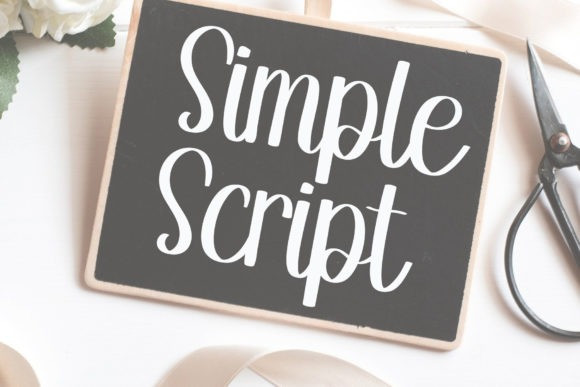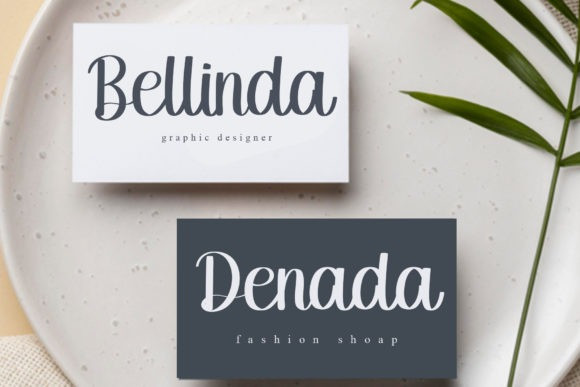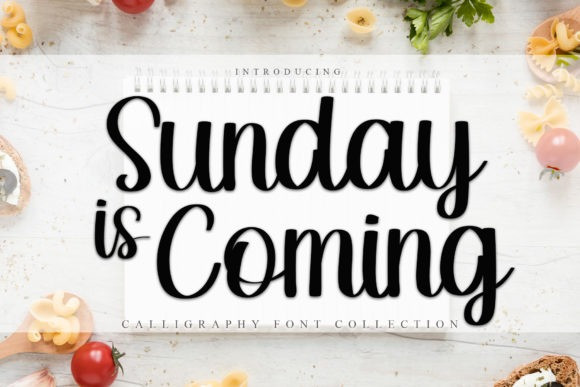
Sunday Is Coming Font
Sunday Is Coming Script Font is a sweet and cursive handwritten font. This gentle font will look gorgeous on a variety of design ideas. It will add a joyful and romantic touch to each of your projects!